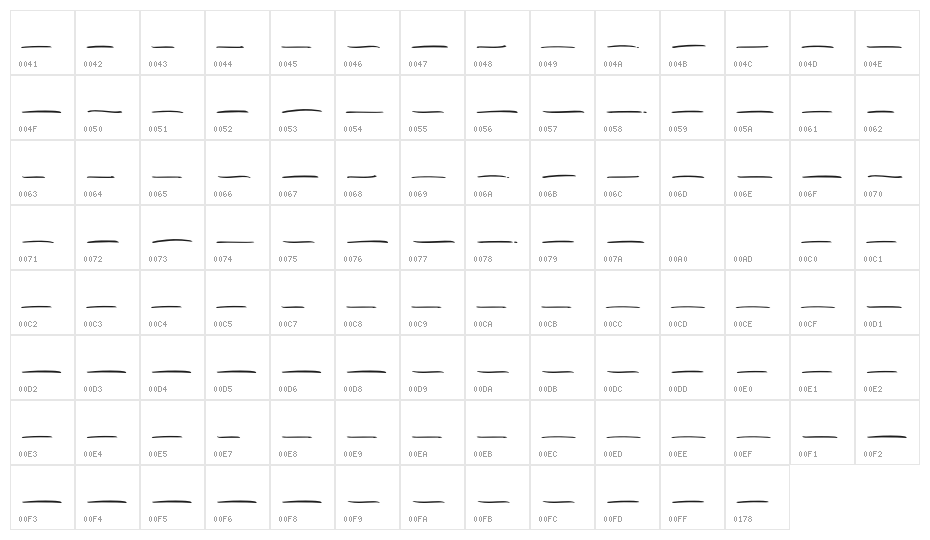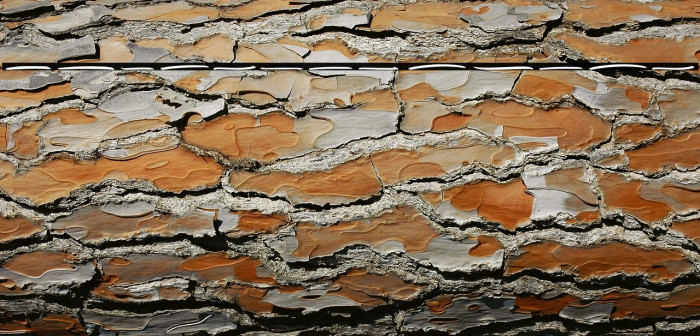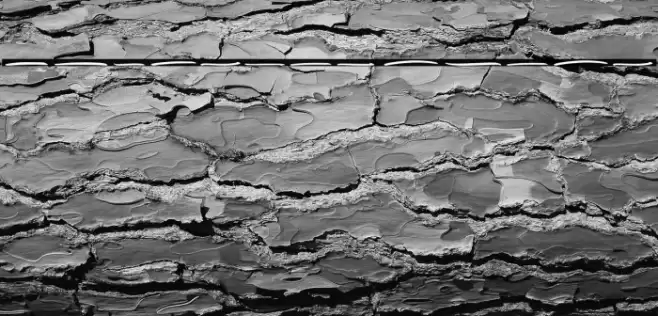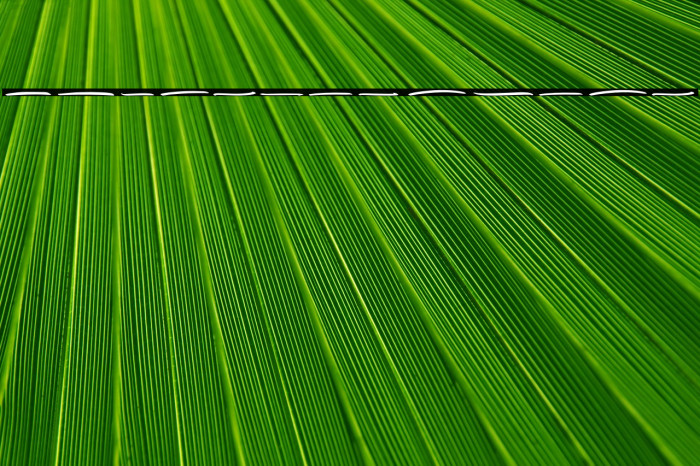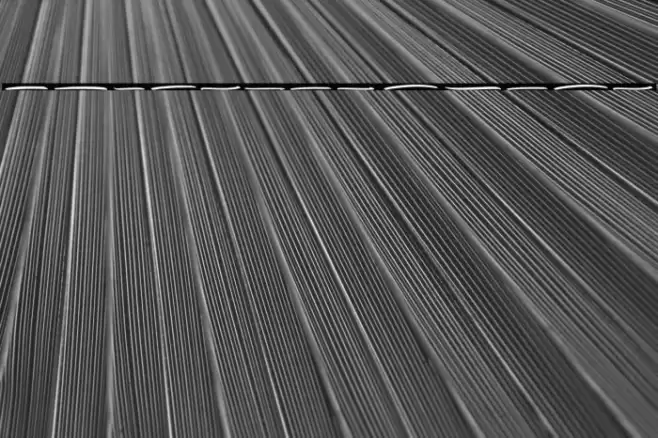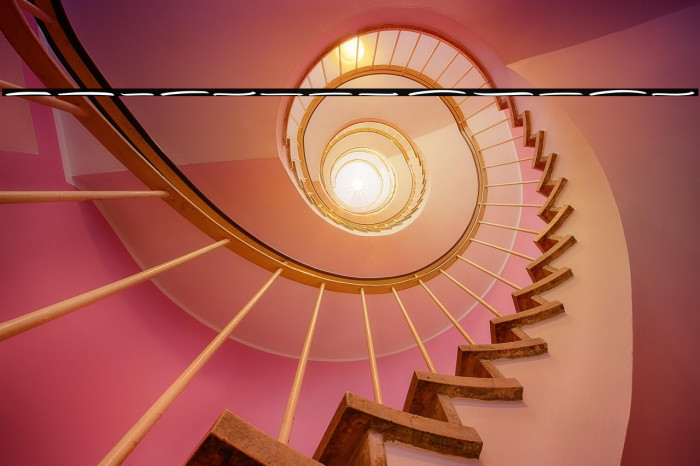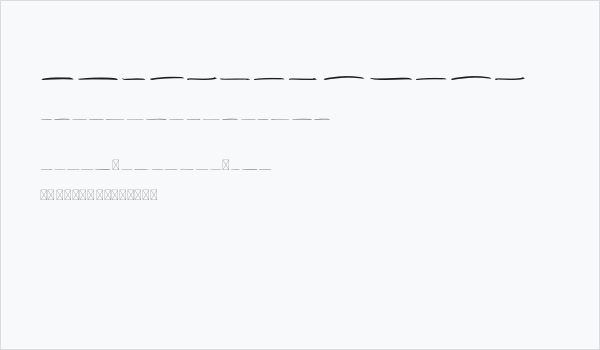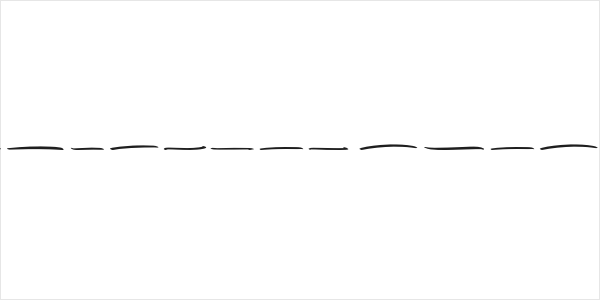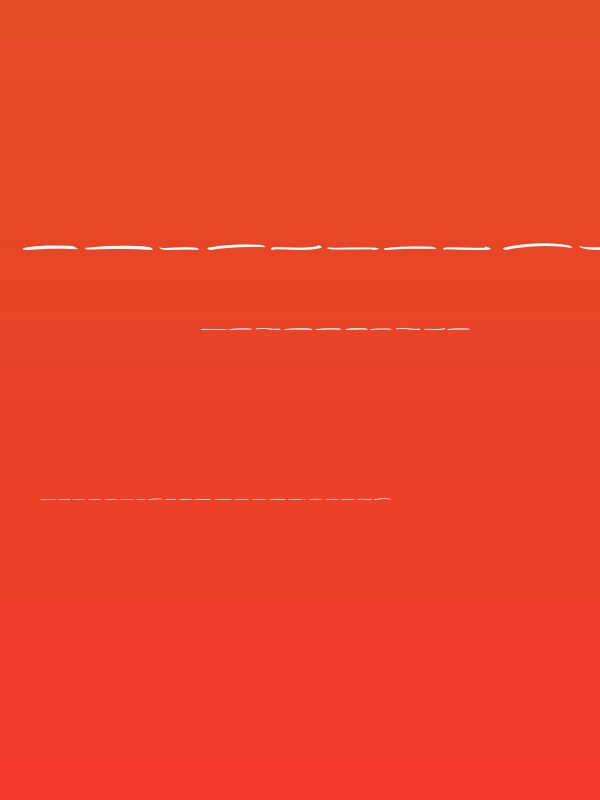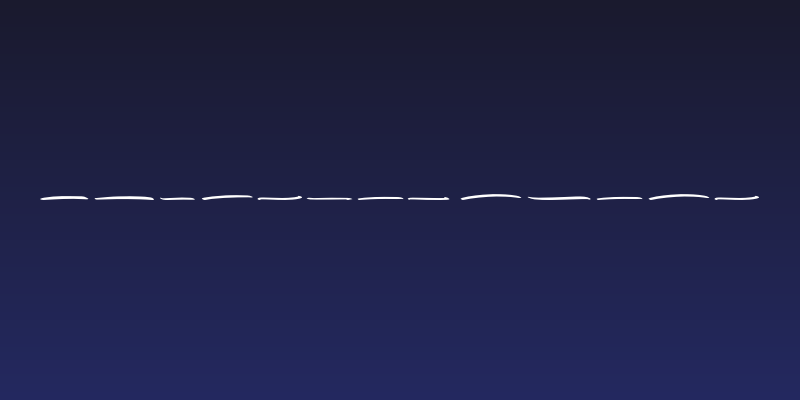
Rockhead Swash Font
Rockhead Swash Description
The image contains wavy, hand-drawn horizontal lines and geometric square shapes with X marks inside, but it does not display any recognizable alphabetic, numeric, or symbolic characters.